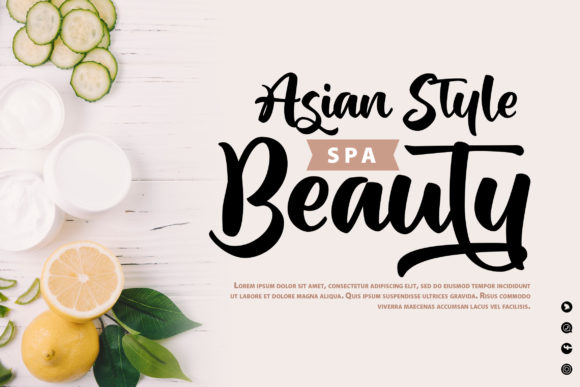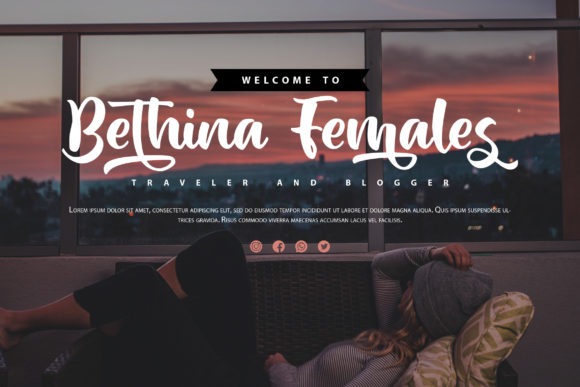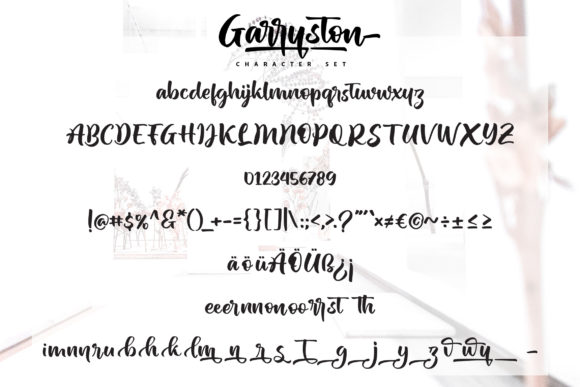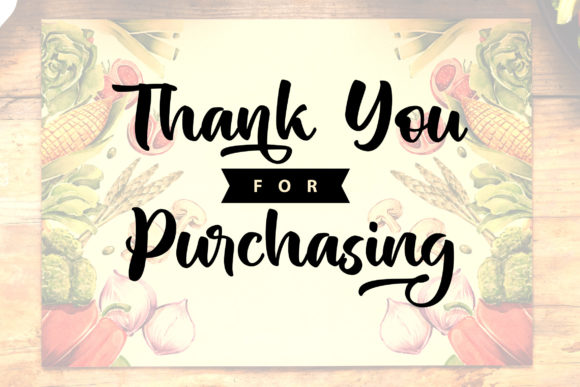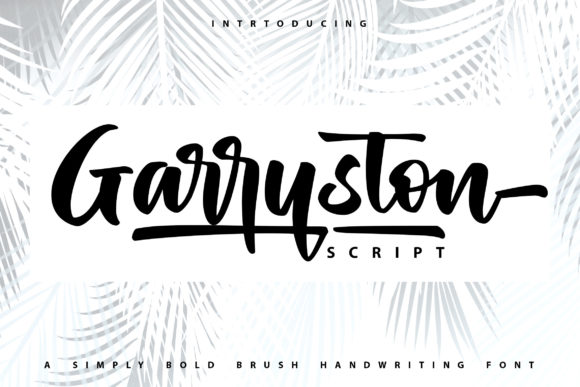
Garryston Font: Elevate Your Designs with a Trendy and Chic Handwritten Style
In the world of typography, fonts play a crucial role in making or breaking a design. A perfect font can instantly elevate your project, making it more visually appealing and engaging. If you’re a designer, craftsperson, or simply someone who loves to dabble in creative projects, you’re in luck! Introducing the Garryston Font, a trendy and chic handwritten font that’s about to take your designs to the next level.
What is Garryston Font?
Garryston Font is a modern, handwritten typeface that exudes elegance and sophistication. Its unique, flowing script is perfect for a wide range of design applications, from branding and advertising to packaging and digital media. With its clean lines, beautiful swashes, and stylish glyphs, Garryston Font is sure to add a touch of class to any project.
Key Features of Garryston Font
- PUA Encoded: Garryston Font is PUA (Private Use Area) encoded, which means you can access all glyphs and swashes with ease. This feature makes it incredibly easy to use and customize the font to suit your design needs.
- Trendy and Chic: Garryston Font boasts a trendy, modern aesthetic that’s perfect for designers who want to create fresh, eye-catching designs.
- Handwritten Style: The font’s handwritten style gives it a personal, organic feel that’s perfect for creating unique and engaging designs.
- Endless Possibilities: With Garryston Font, the creative possibilities are endless. Use it for logos, branding, social media graphics, and more!
Benefits of Using Garryston Font
So, why choose Garryston Font for your design projects? Here are just a few benefits of using this amazing font:
- Stand Out from the Crowd: With Garryston Font, you can create designs that stand out from the crowd. Its unique, stylish aesthetic is sure to grab attention and leave a lasting impression.
- Versatile: Garryston Font is versatile and can be used for a wide range of design applications, from digital media to print materials.
- Time-Saving: With Garryston Font, you can save time and effort on your design projects. Its extensive range of glyphs and swashes means you can create professional-looking designs quickly and easily.
How to Use Garryston Font
Using Garryston Font is easy! Here are a few tips to get you started:
- Experiment with Glyphs and Swashes: Take some time to explore the font’s extensive range of glyphs and swashes. These can add an extra touch of style and sophistication to your designs.
- Pair it with Other Fonts: Garryston Font pairs well with a range of other fonts. Experiment with different combinations to find the perfect look for your design.